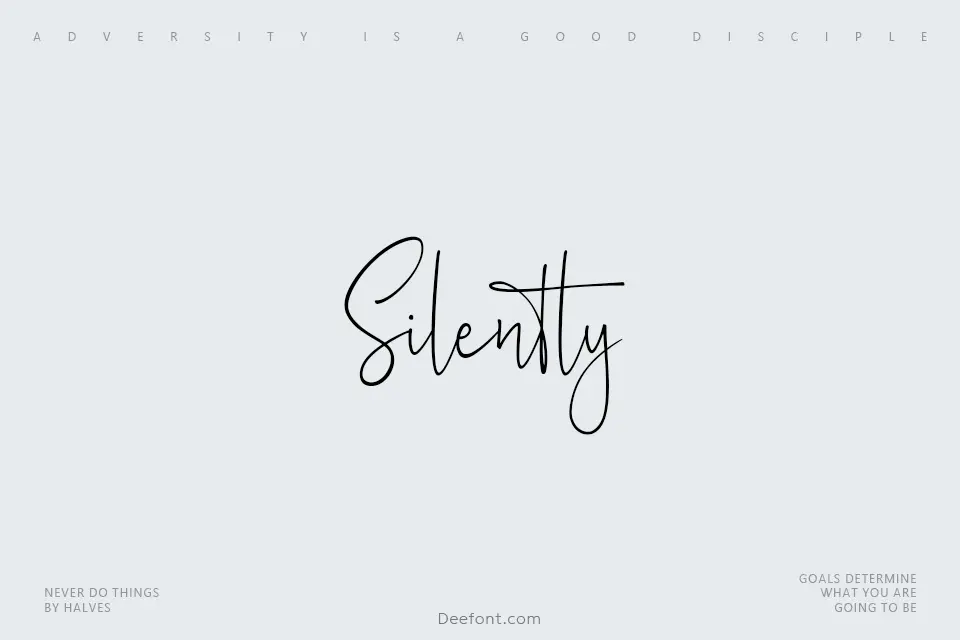
Silently Font
Silently Font is an elegant handwritten script typeface with smooth, flowing curves and varied stroke contrast that feel like natural ink on paper. Its relaxed yet refined rhythm makes it perfect for logos, wedding invitations, social media quotes, product packaging, boutique branding, greeting cards and expressive poster titles.